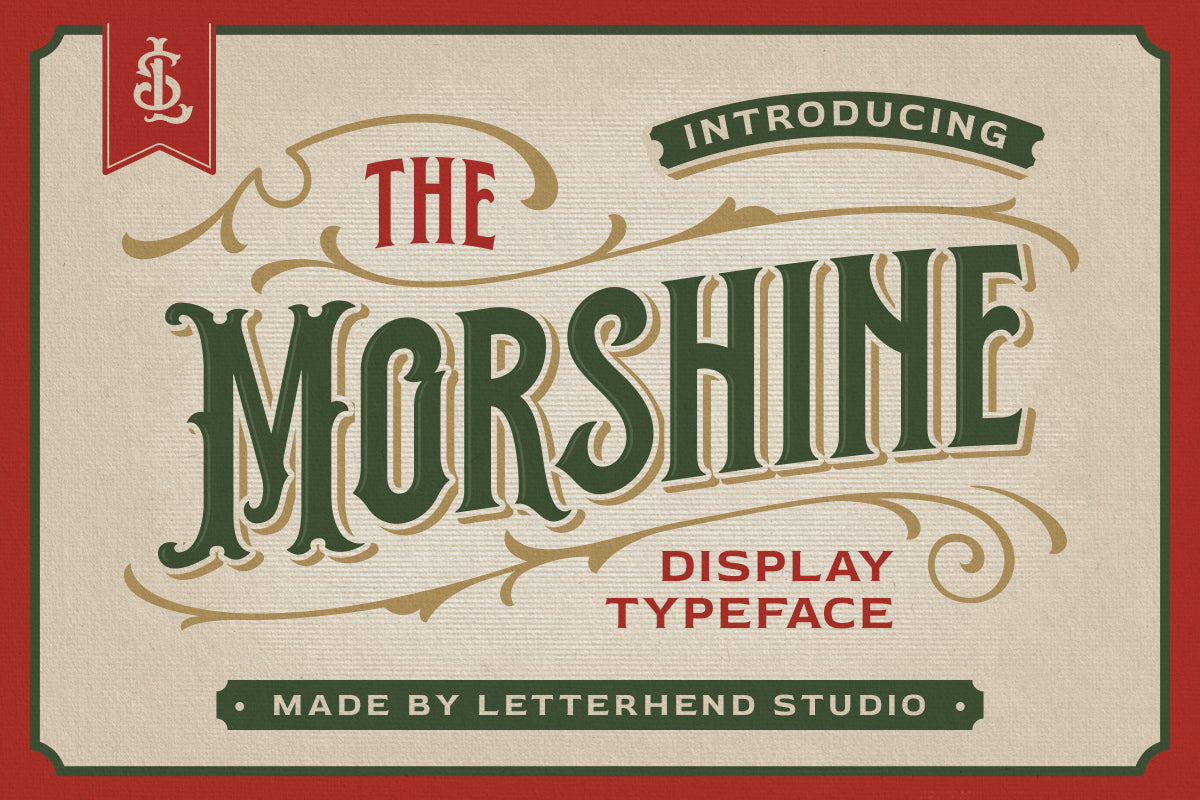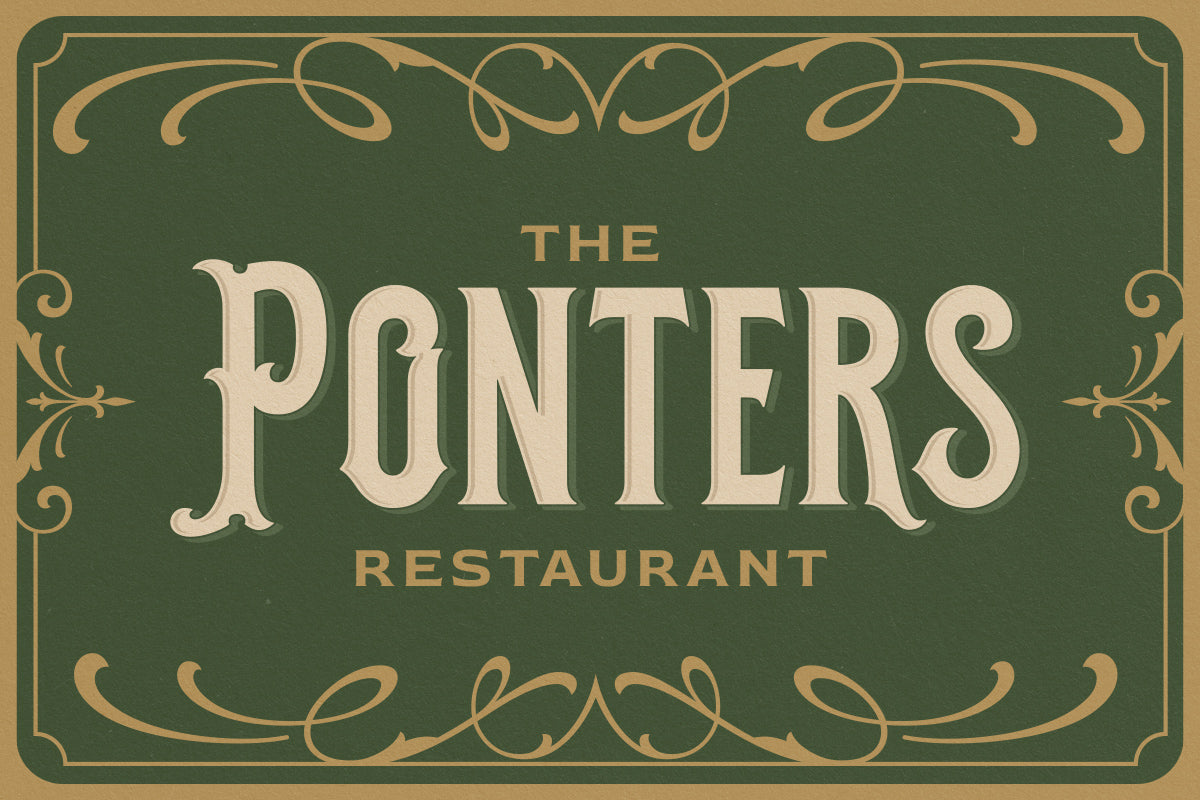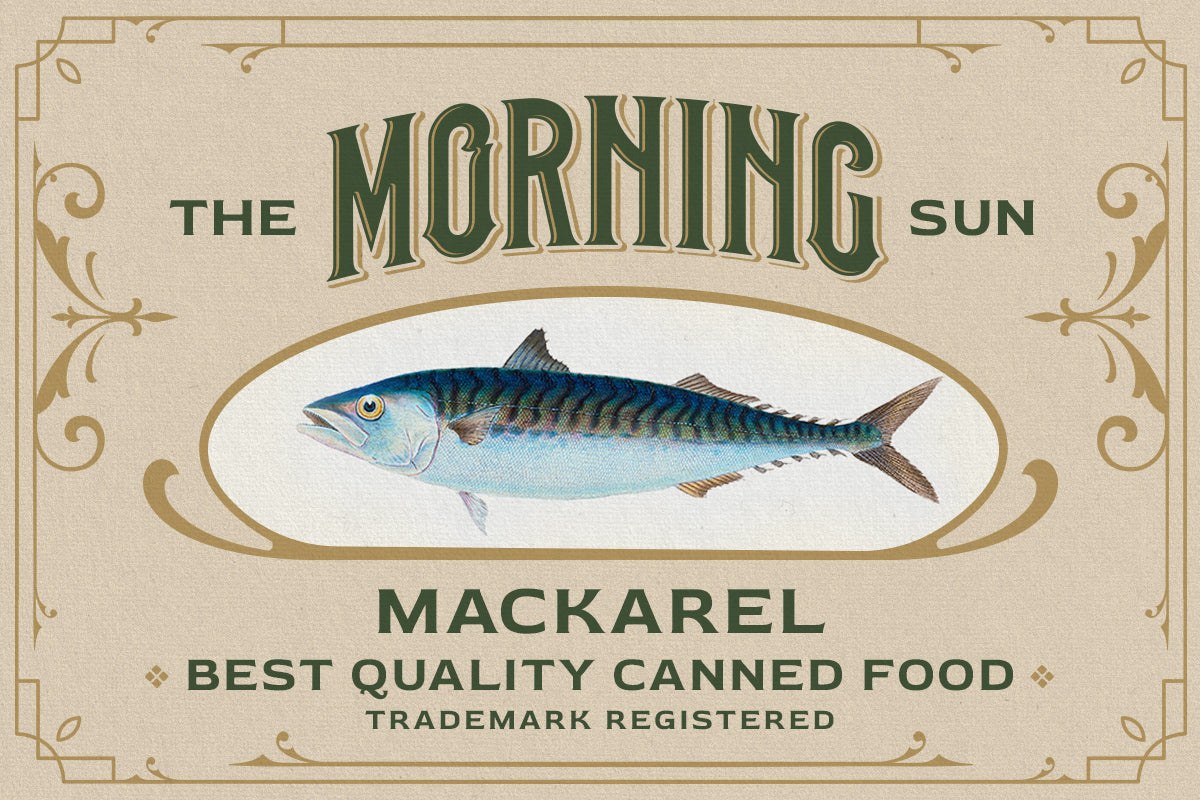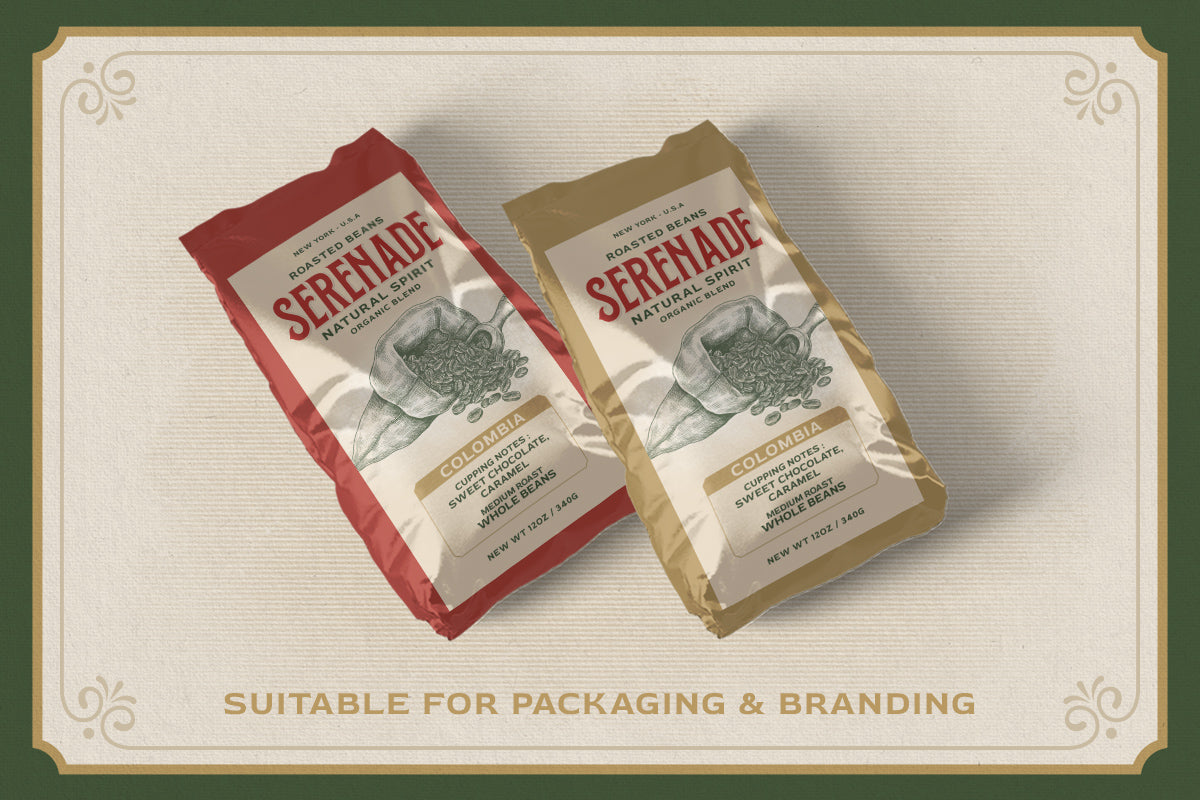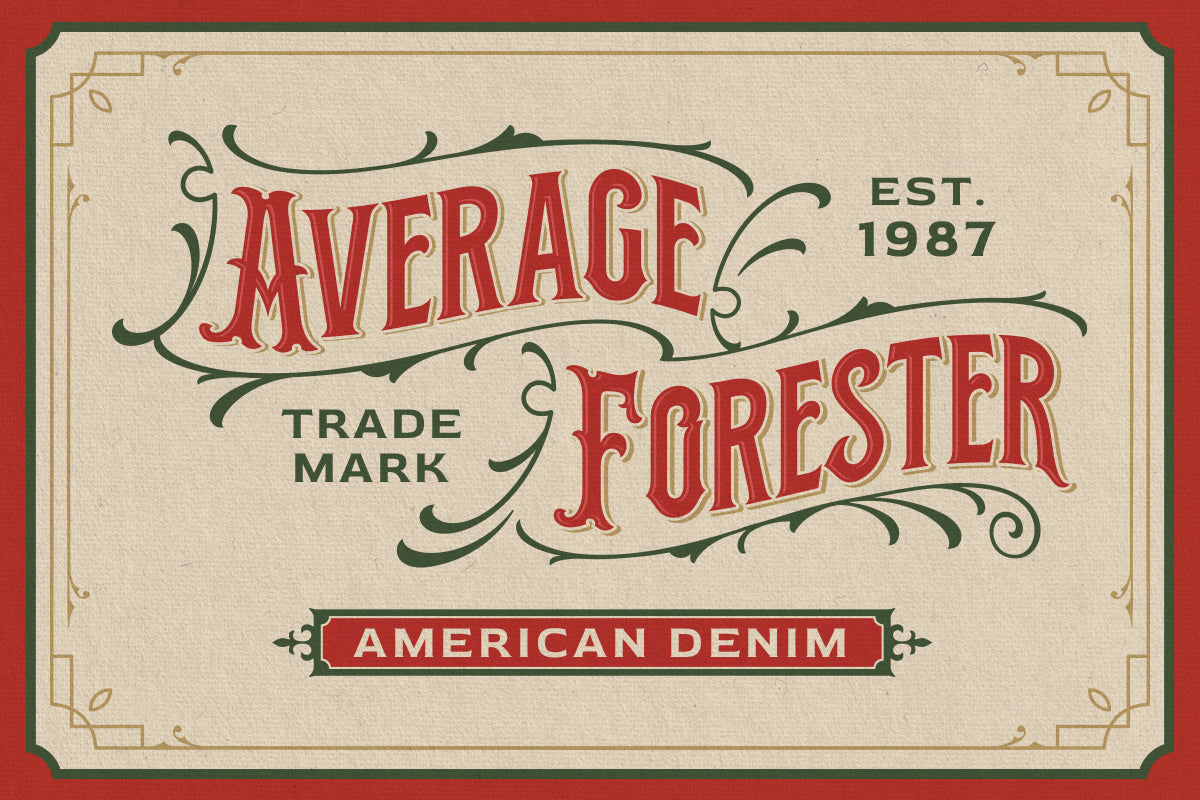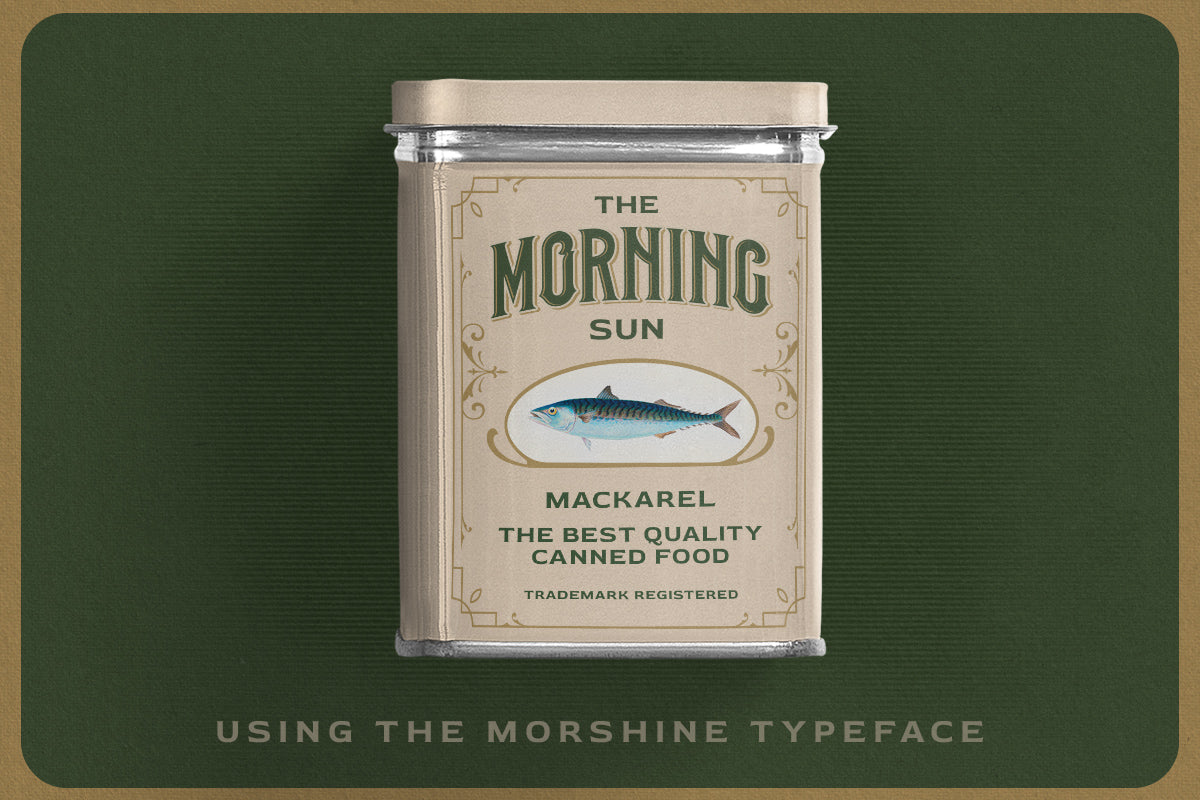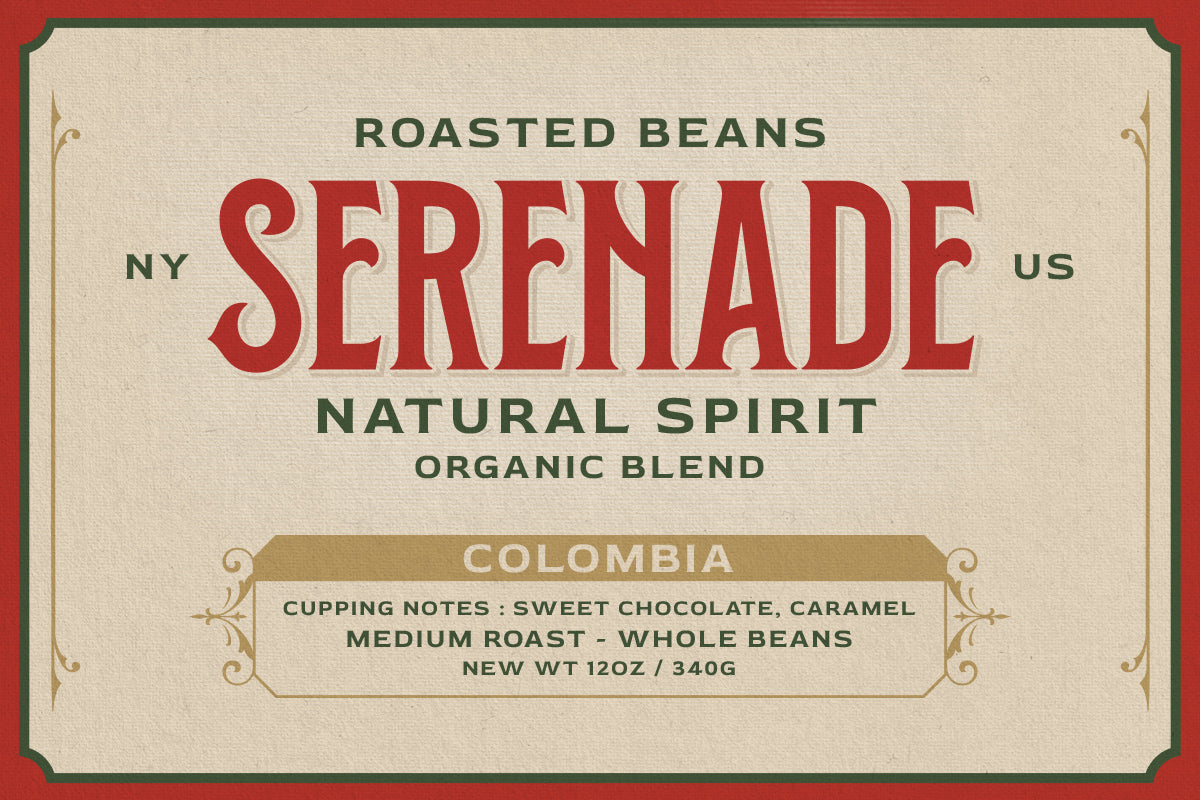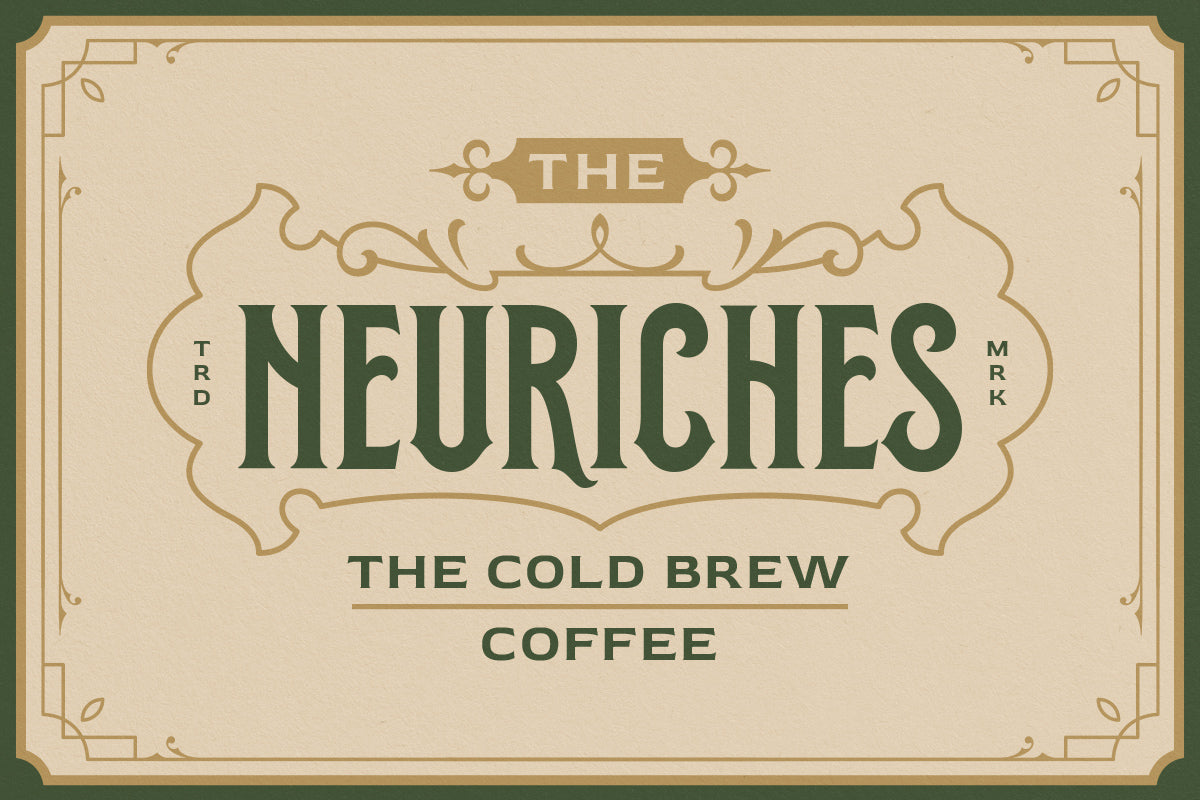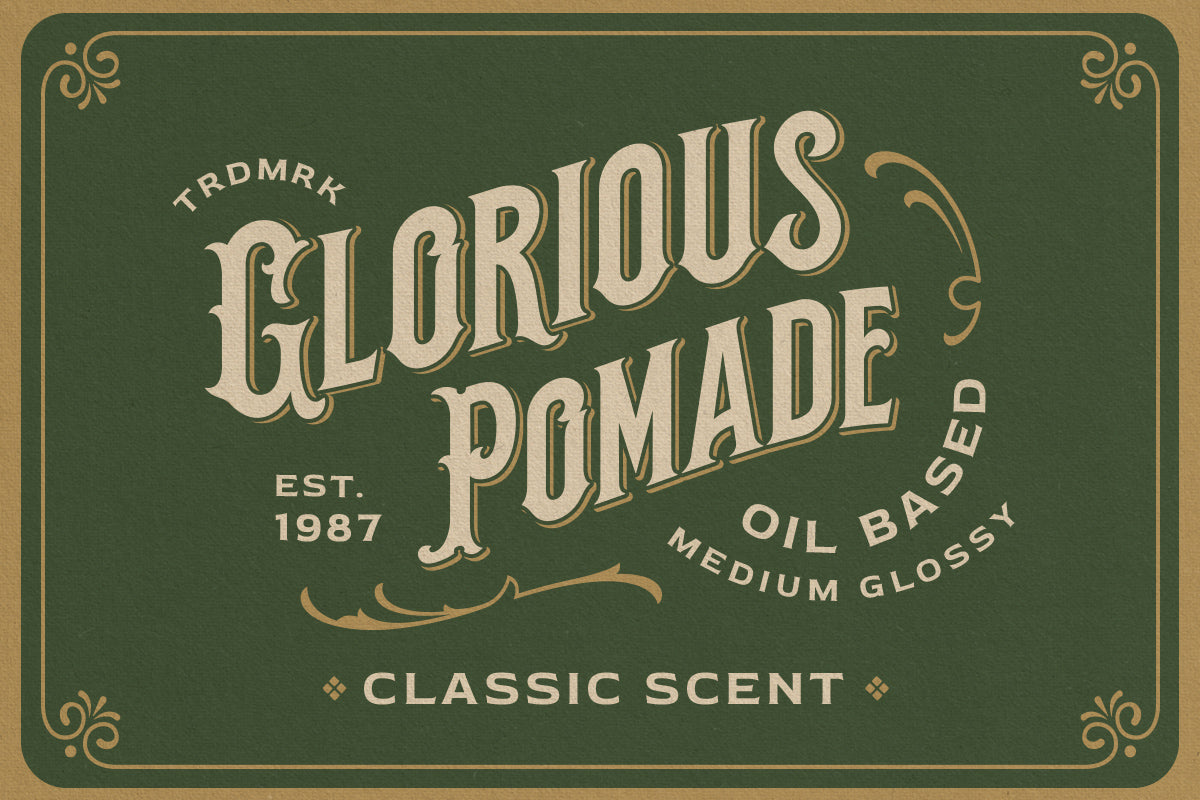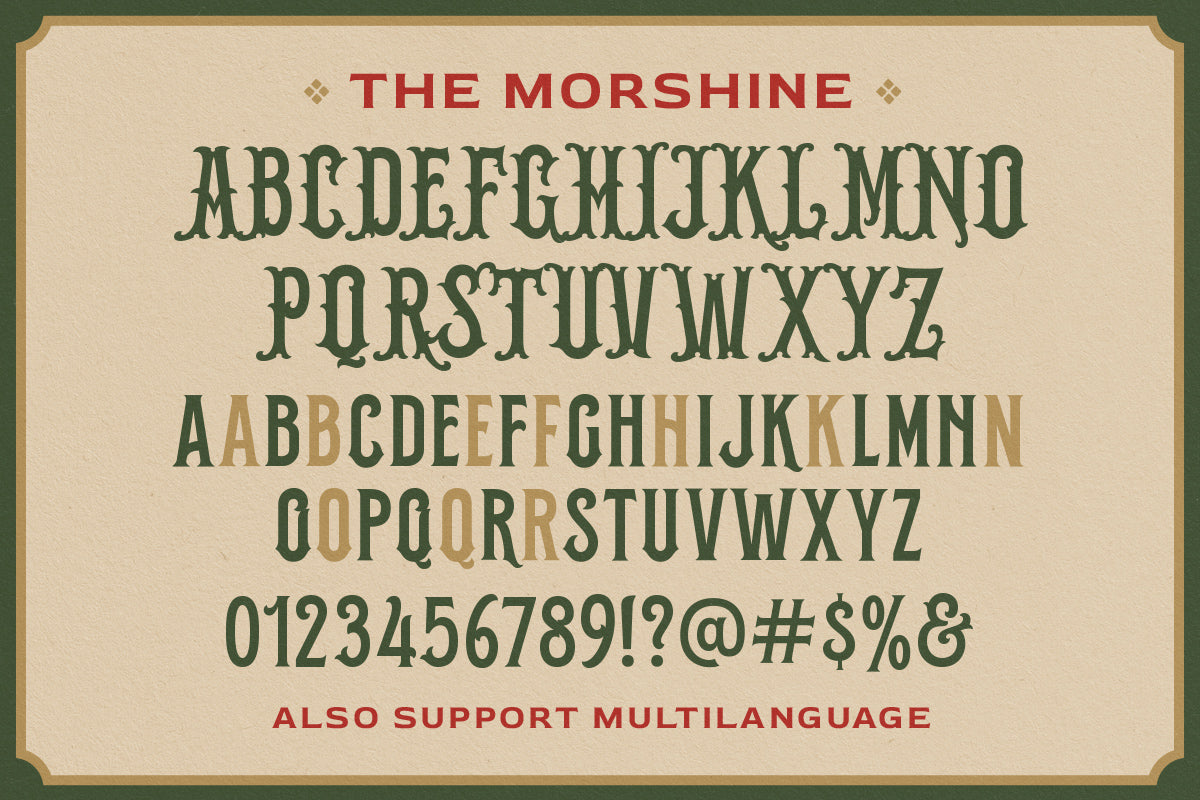
The Morshine - Victorian Display Font
The Morshine is a typeface that is inspired by vintage lettering signs and art. While this font has a Victorian touch, it still looks bold and solid. Very suitable for headline, logotype, apparel, invitation, branding, packaging, advertising, etc, with old school / vintage theme. This typeface looks great combined with decorative ornaments. It comes in uppercase, lowercase, punctuations, symbols & numerals, stylistic set alternate, ligatures, etc also supports multilingual and is already PUA encoded.
Features :
uppercase & lowercase
numbers and punctuation
multilingual
alternates and ligatures
swashes